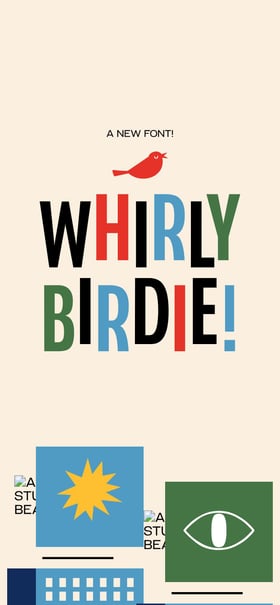
Whirly Birdie Variable Font
Wonderful Landing Page promoting Whirly Birdie – a variable typeface inspired by American 1950s advertising. There is loads of effort to appreciate here; the bursting intro text as you scroll, the font playground paying homage to classics like cornflakes, the “Whirlbats” dingbats keyboard demo and the interactive office space allowing a random shuffle of the elements using your dice cursor. Fun!